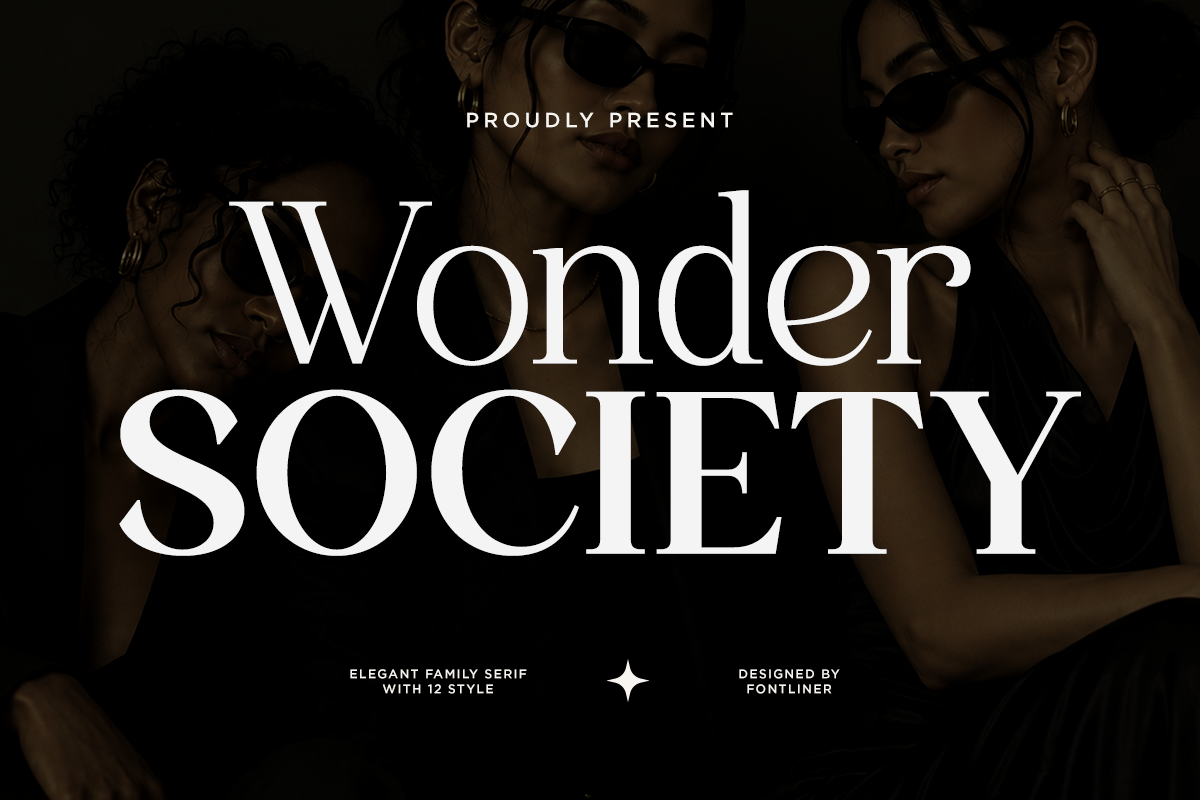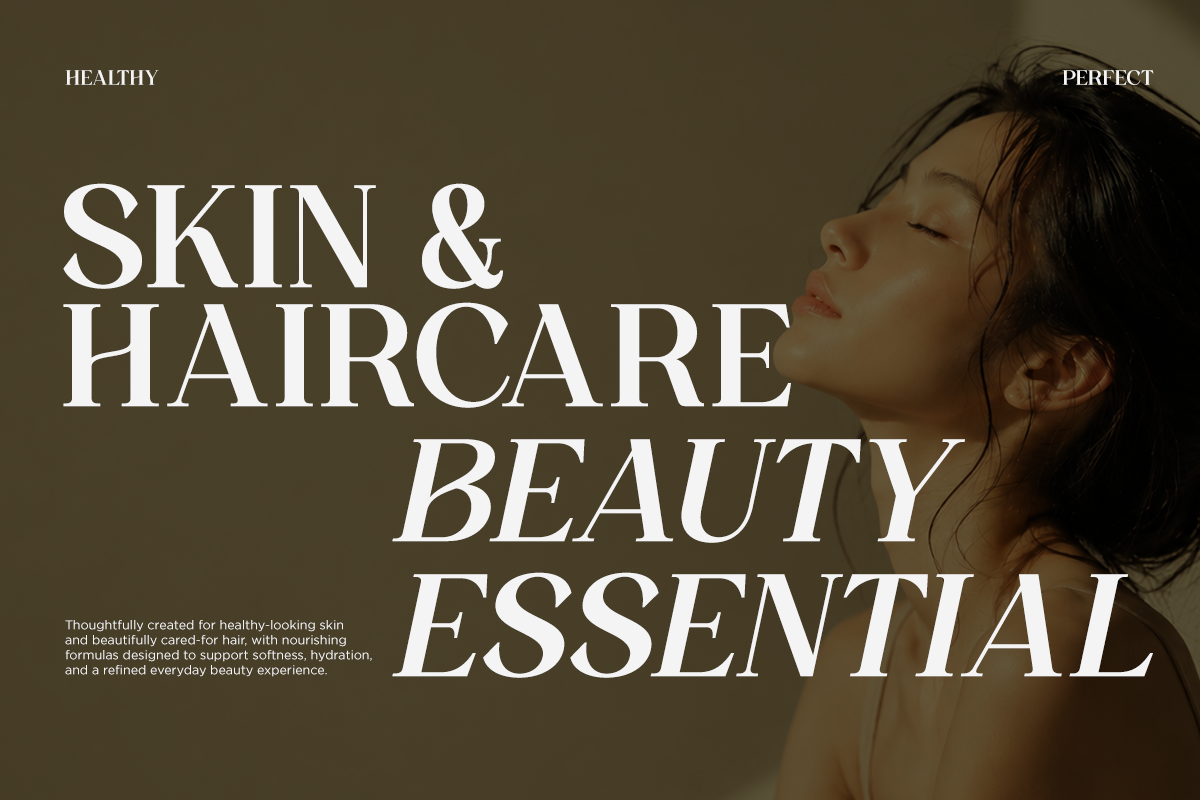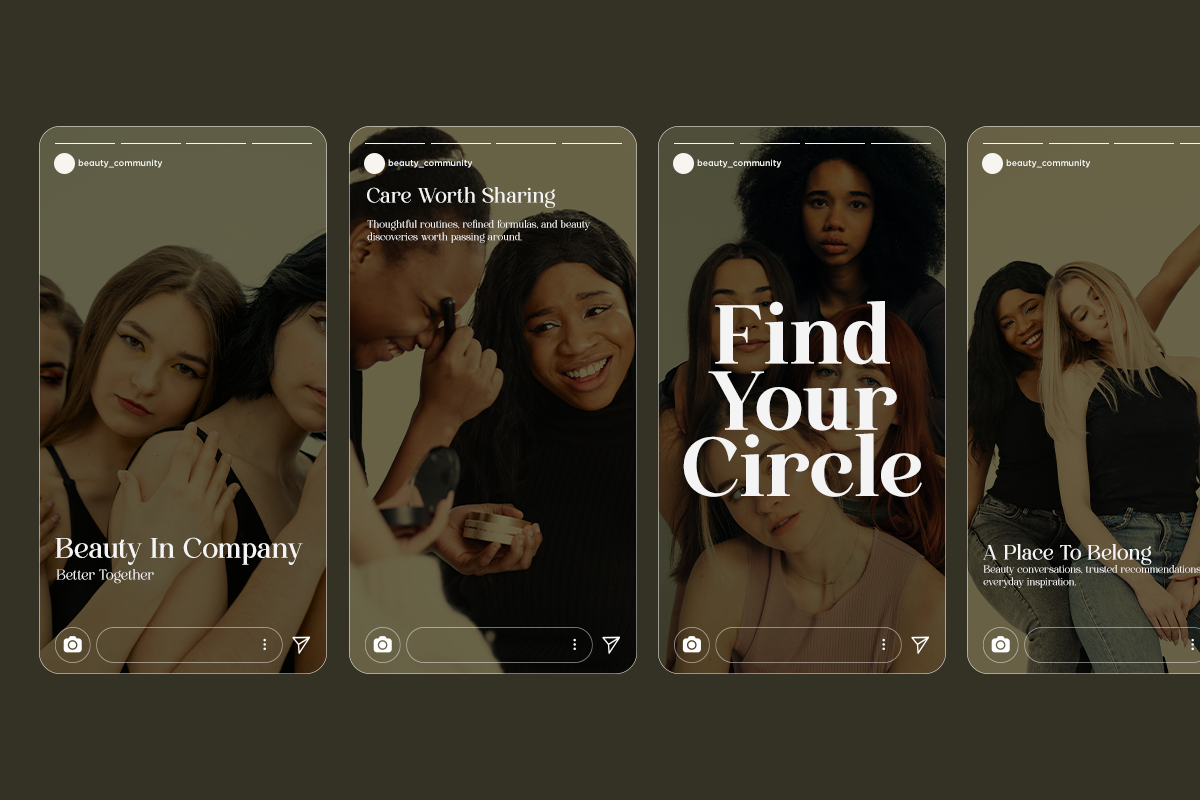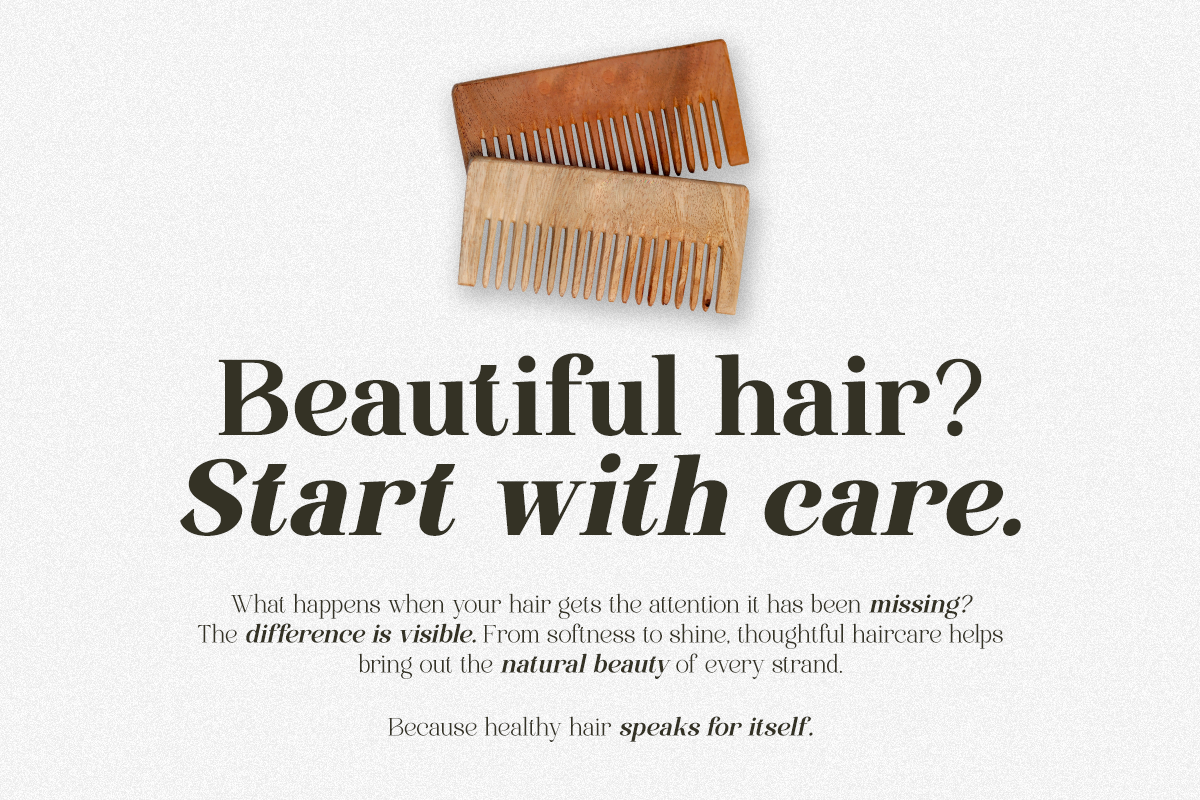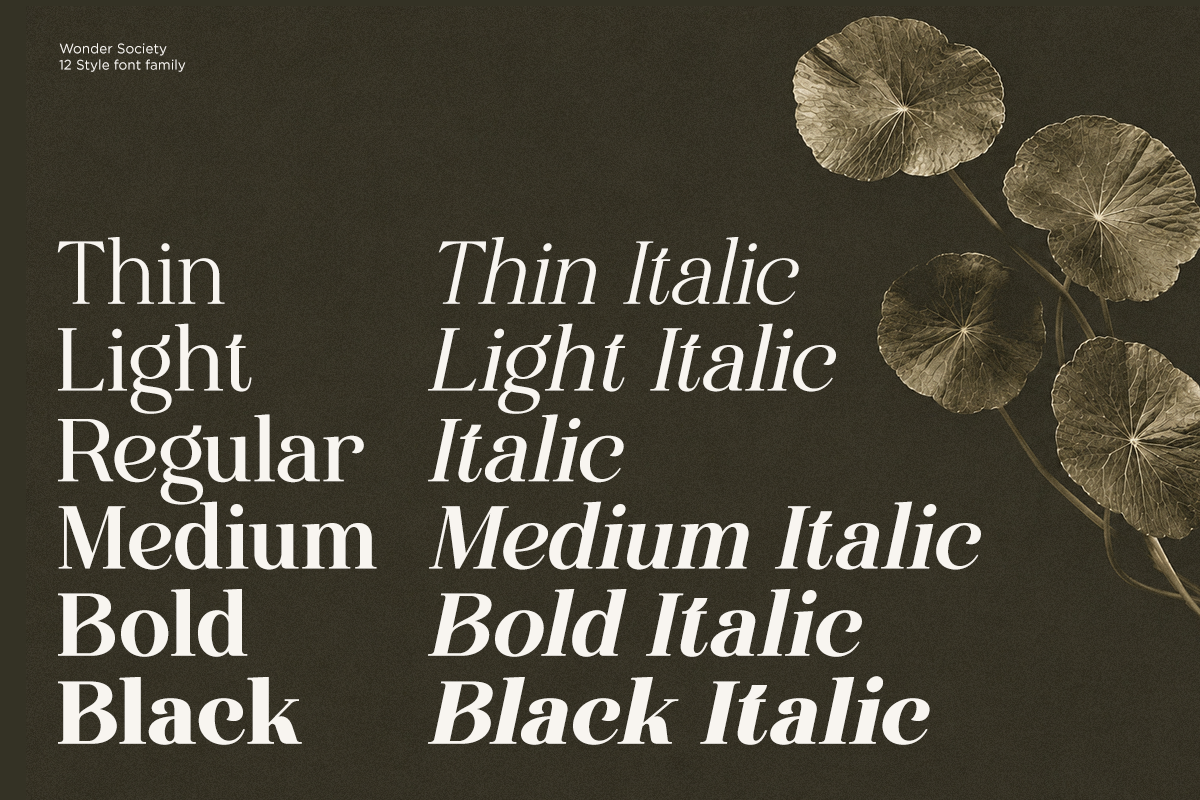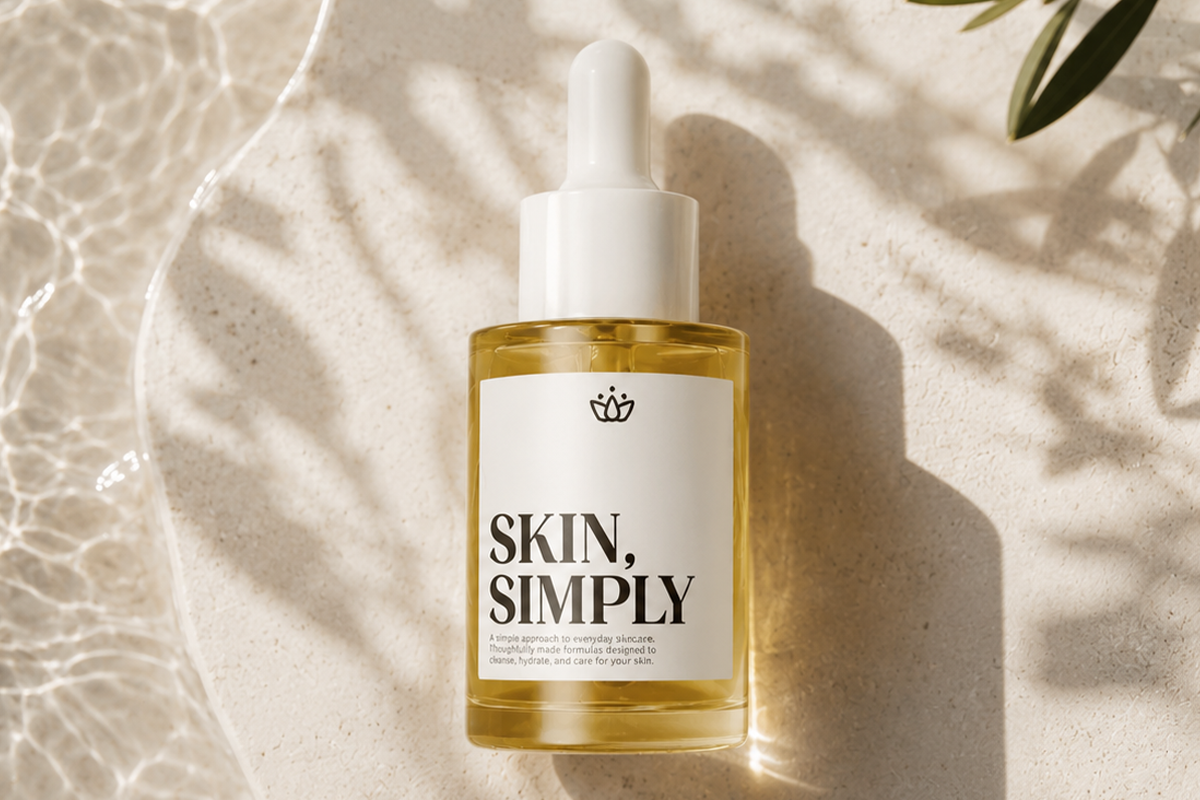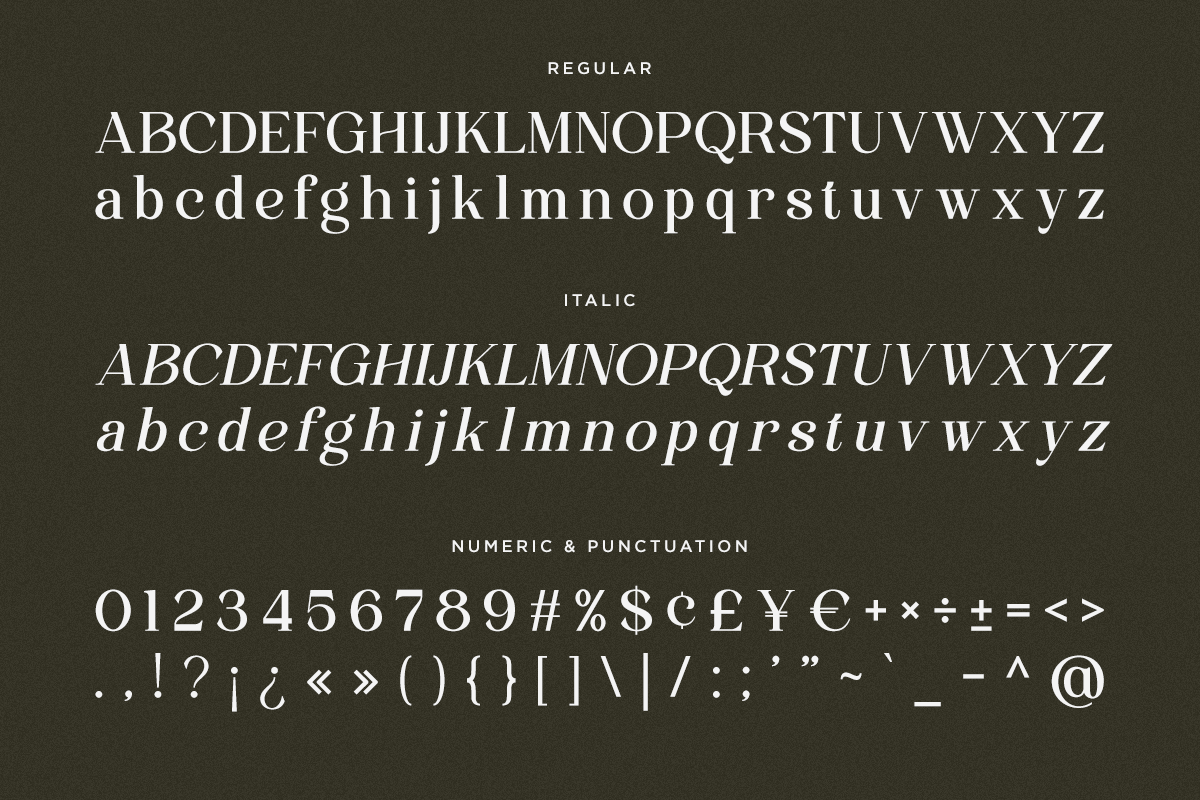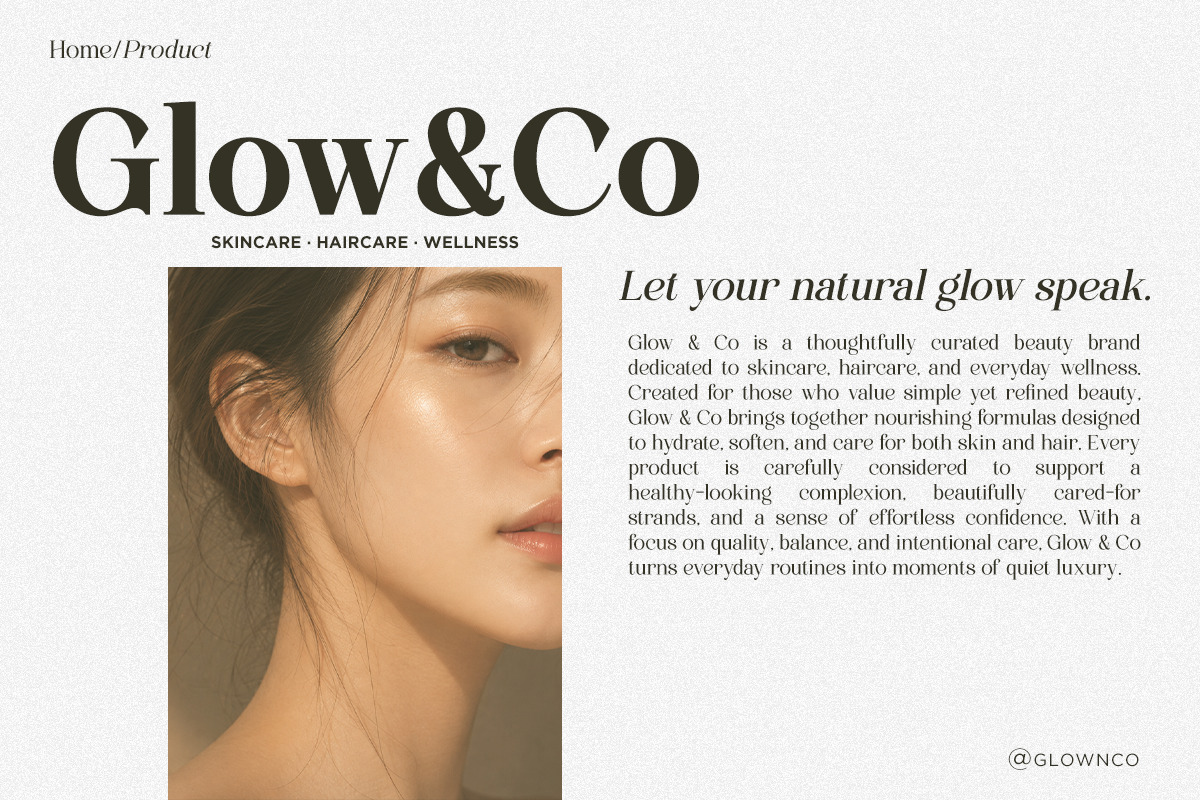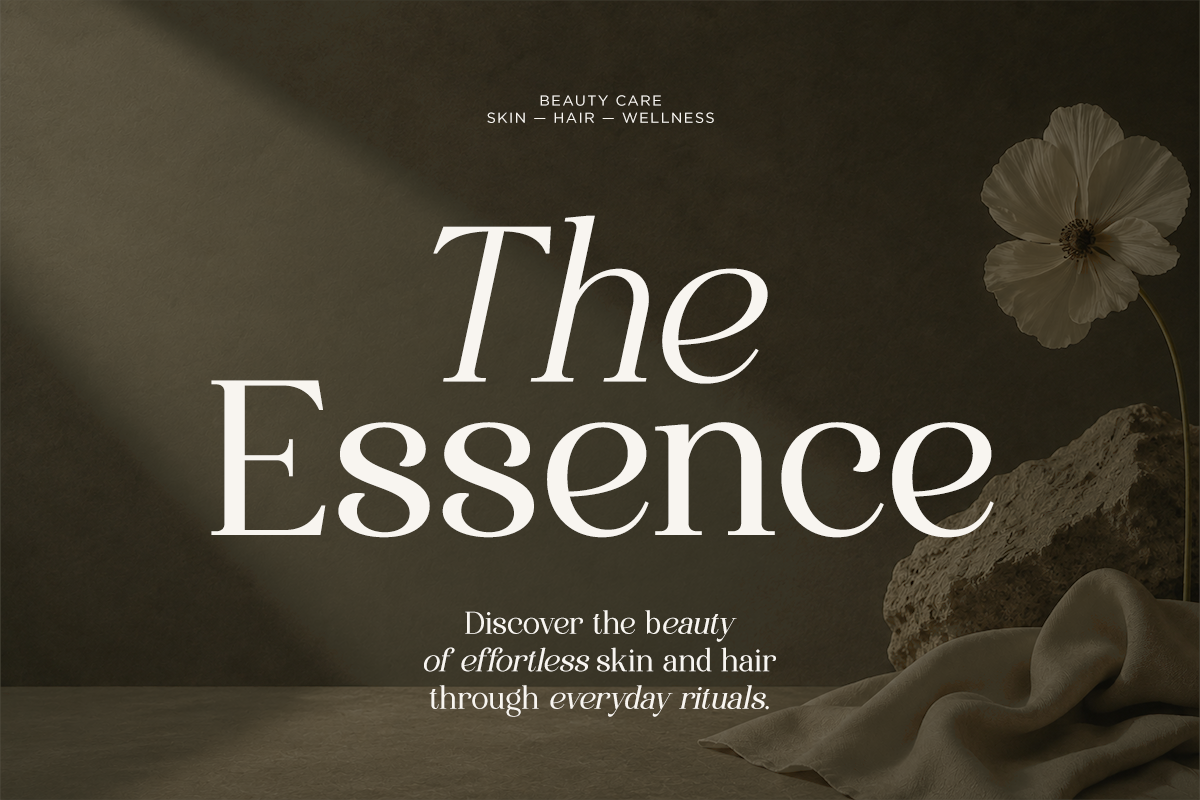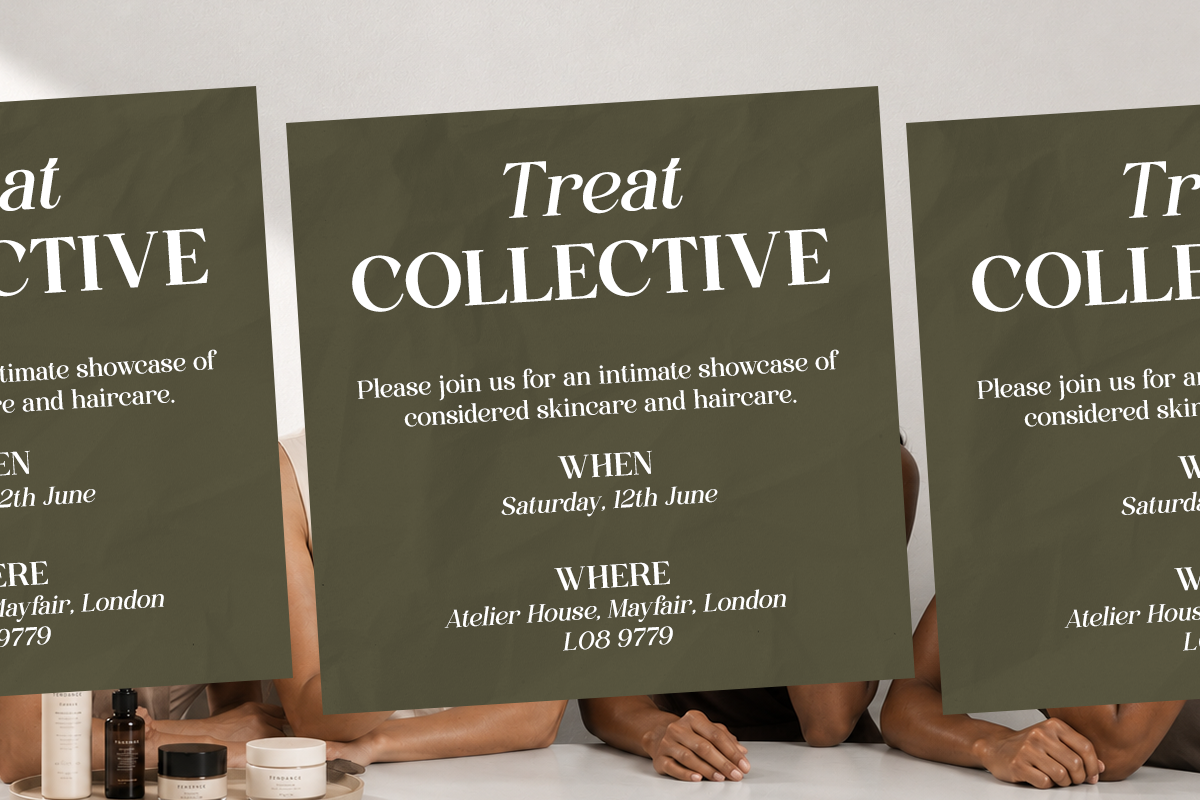
Wonder Society - Family Modern Serif
Wonder Society is an elegant serif font family designed to bring a sophisticated, refined, and timeless character to modern visual identities. Its graceful letterforms and high-contrast details make it an excellent choice for luxury branding, fashion editorials, beauty campaigns, magazines, and premium creative projects.
The family features 6 variable styles, giving you greater flexibility to control the visual weight and personality of your typography. From delicate and graceful expressions to stronger and more impactful compositions, Wonder Society allows designers to create beautifully balanced typography across a wide range of applications.
Perfect for luxury branding, fashion, beauty, skincare, haircare, editorial design, magazines, logos, packaging, invitations, advertising, and social media, Wonder Society brings an elevated editorial feel to every project. Its versatile serif character makes it suitable for both sophisticated headlines and distinctive brand statements.
6 Variable Weights
Regular and Italic
Number, Symbol, and Punctuation